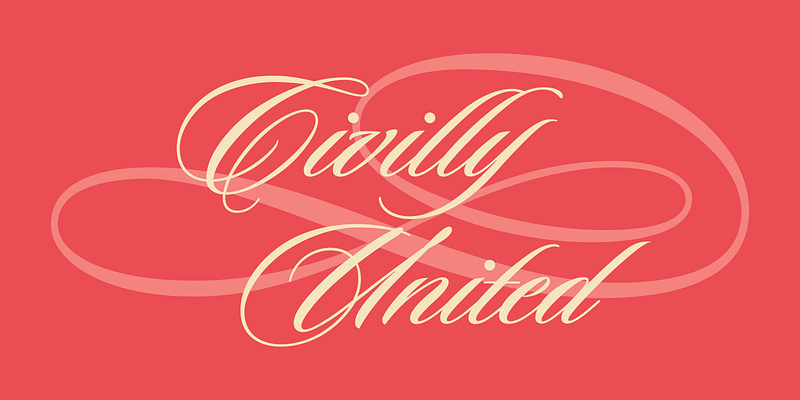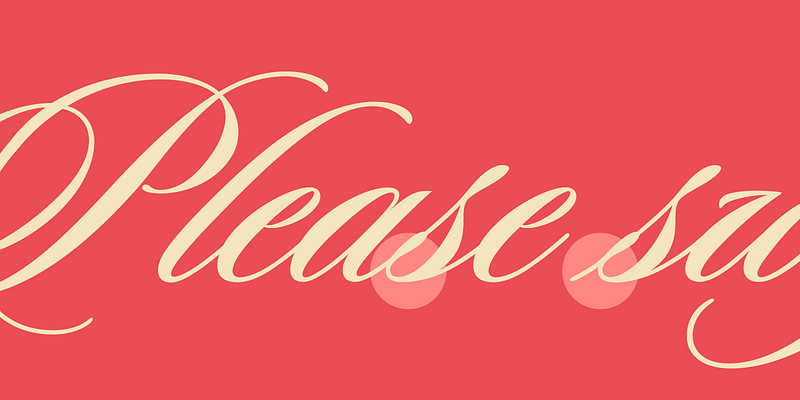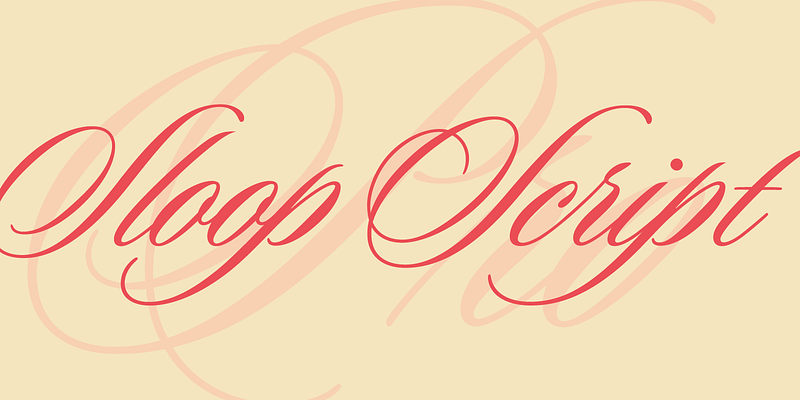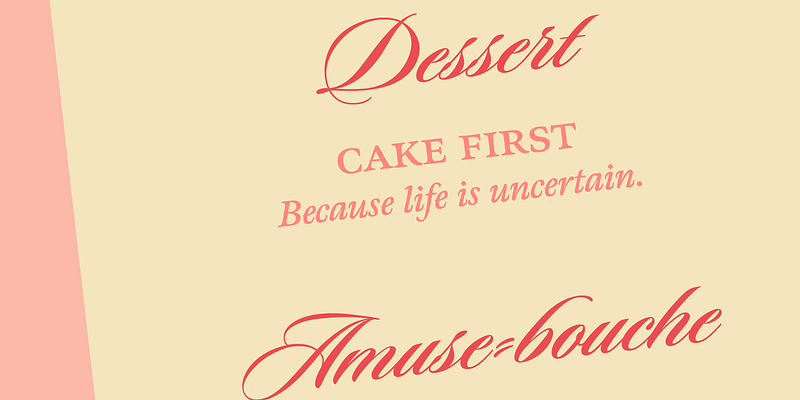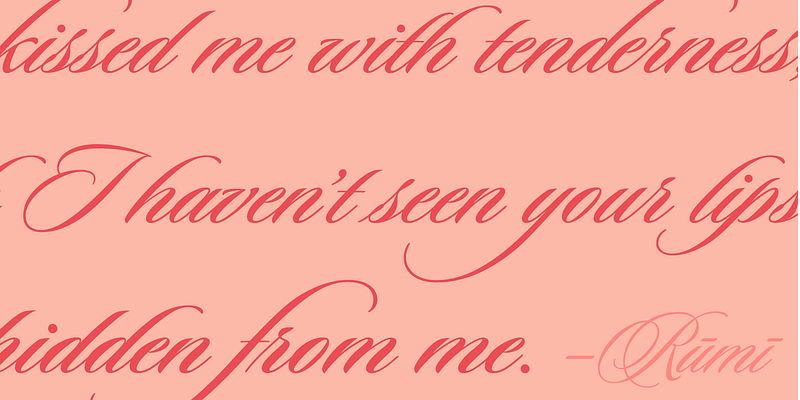
Sloop Script is elegant calligraphy, bringing typography to life with its sweeping gestural strokes, swashes, and alternates. Richard Lipton originally released Sloop Script in 1994 through Font Bureau. Sloop Script Pro is the new, improved, rethought version, offering expanded language support and more typographic features. Sloop Script sets beautifully out of the box or can become even more audacious with entry and exit swashes, small caps, ligatures, and alternates.
Lipton Letter Design is where you will find typefaces that epitomize calligraphic elegance, versatility, and timeless appeal. For more than 40 years, Richard Lipton has used his background as a calligrapher to guide his work as a type designer. Finding creative freedom within the strict parameters of type design, he feels no limits in his letter-making. Whether serif, sans, script, or display, Lipton’s faces have a sophisticated range sure to elevate the projects of any designer or typographer.